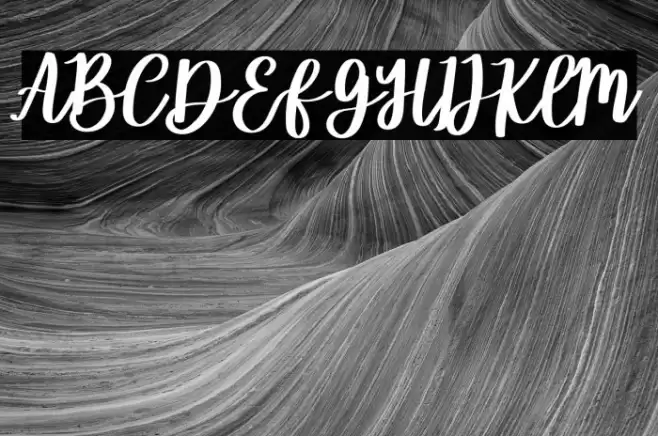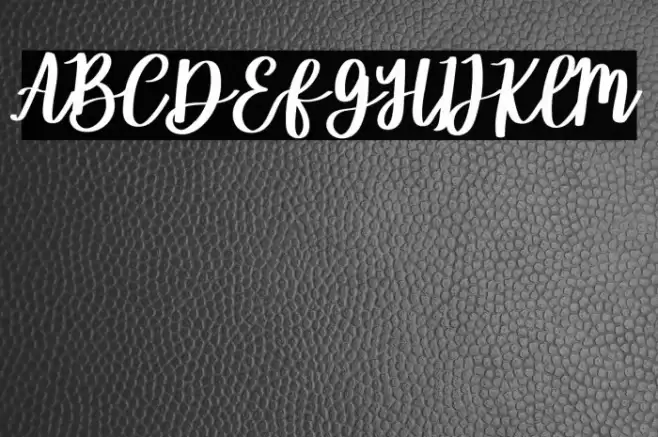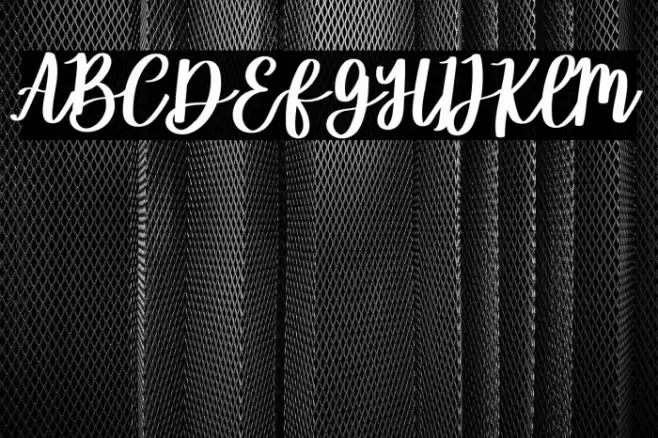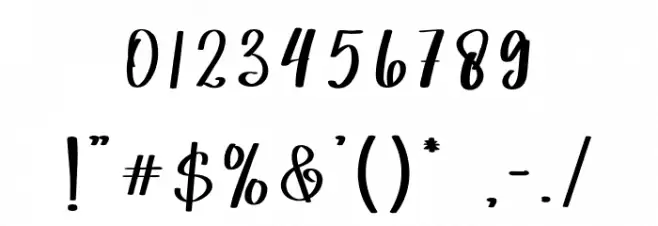
CreativeInnovativeRegular Font
CreativeInnovativeRegular Description
This font exhibits a dynamic and flowing script style, characterized by its elegant and cursive letterforms. The uppercase letters are bold and sweeping, with distinctive loops and flourishes that add a touch of sophistication. The lowercase letters maintain a consistent flow, enhancing readability while preserving the artistic flair. Numbers and special characters are designed to complement the overall aesthetic, featuring similar curves and strokes. This font is perfect for projects that require a personal and creative touch, such as invitations, branding, and decorative headings.
A dynamic and flowing script font with elegant cursive letterforms from Uncategorized fonts.
- Proposed Projects: Ideal for wedding invitations, branding, logos, and decorative headings.
- Use Case: Headlines, Logos, Invitations